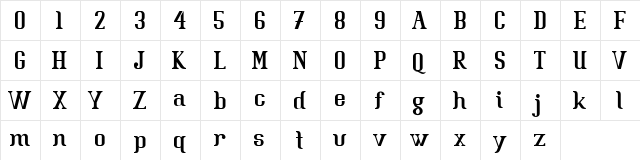
Batavia Glamore BOLD Bold
| Foundry | Afredo.fk |
| Designer | Zulfikar Ali |
Batavia Glamore BOLD takes a measured approach to typography — its balanced proportions and neutral character make it a reliable workhorse for both digital and print work. The heavy weight commands attention and anchors typographic hierarchies.